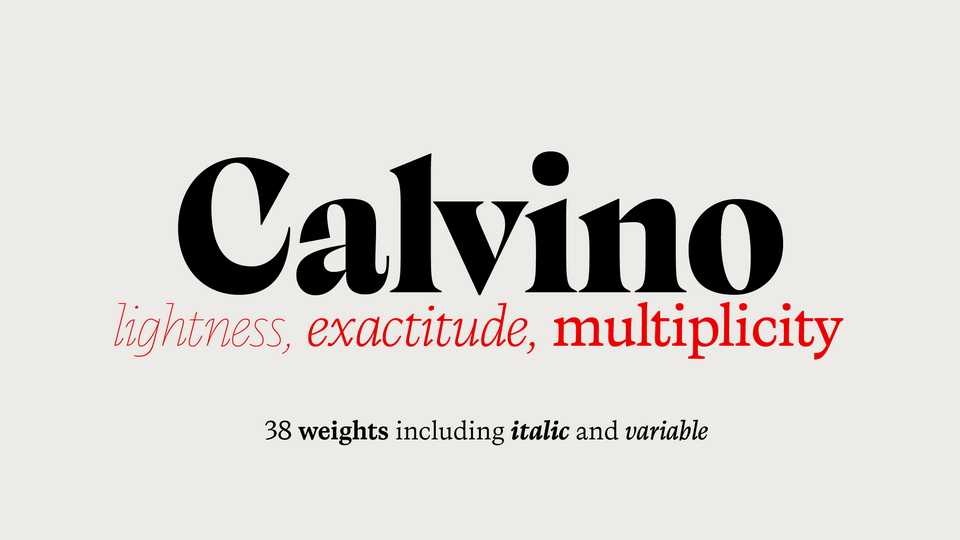
Download Calvino typeface, a serif font family challenged to follow the principles expressed by the Italian writer Italo Calvino in his masterpiece Six memos for the next millennium.
Designer: Zetafonts